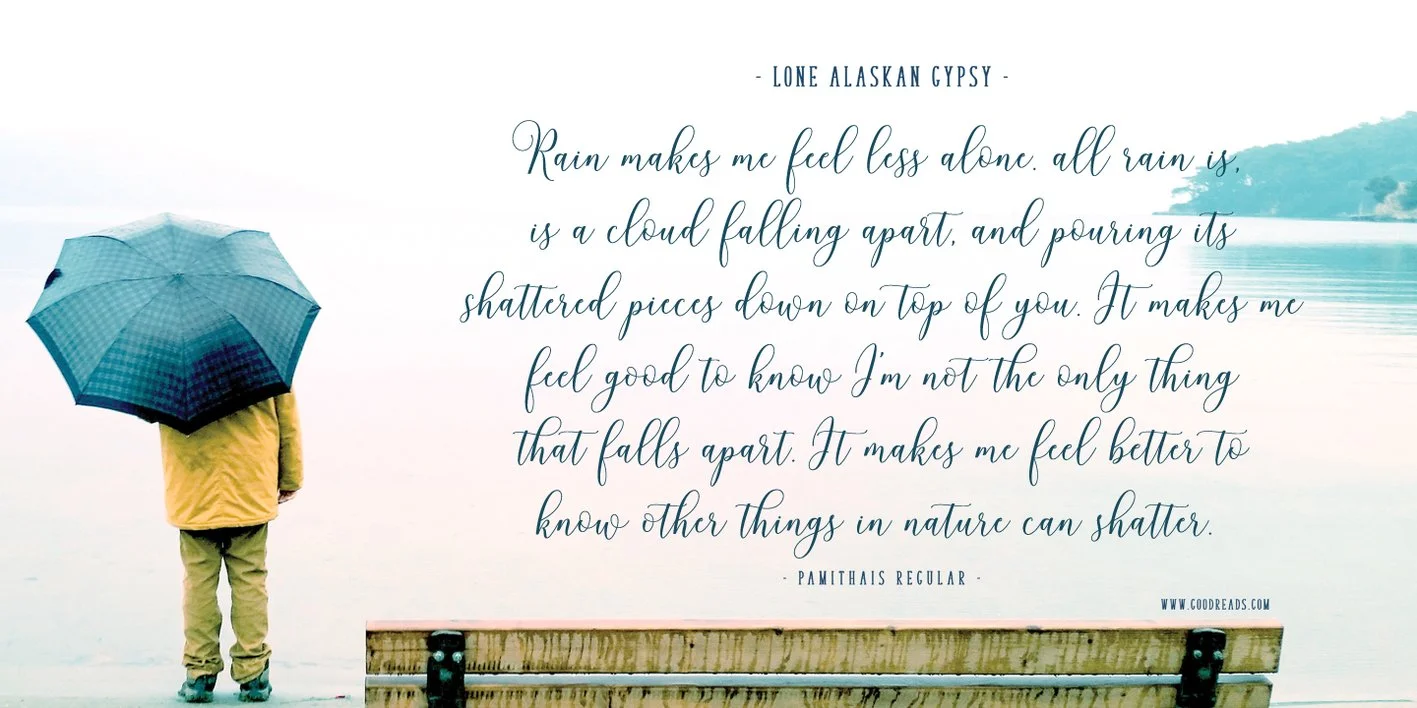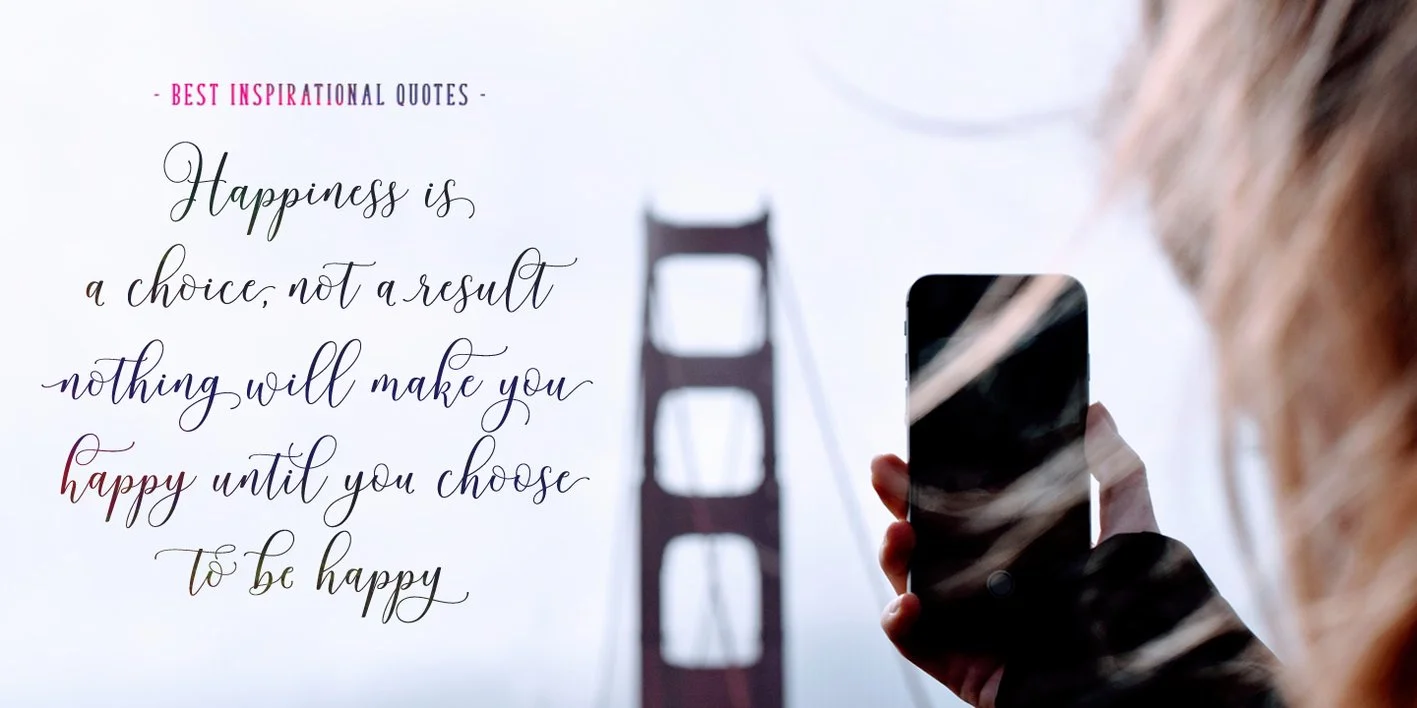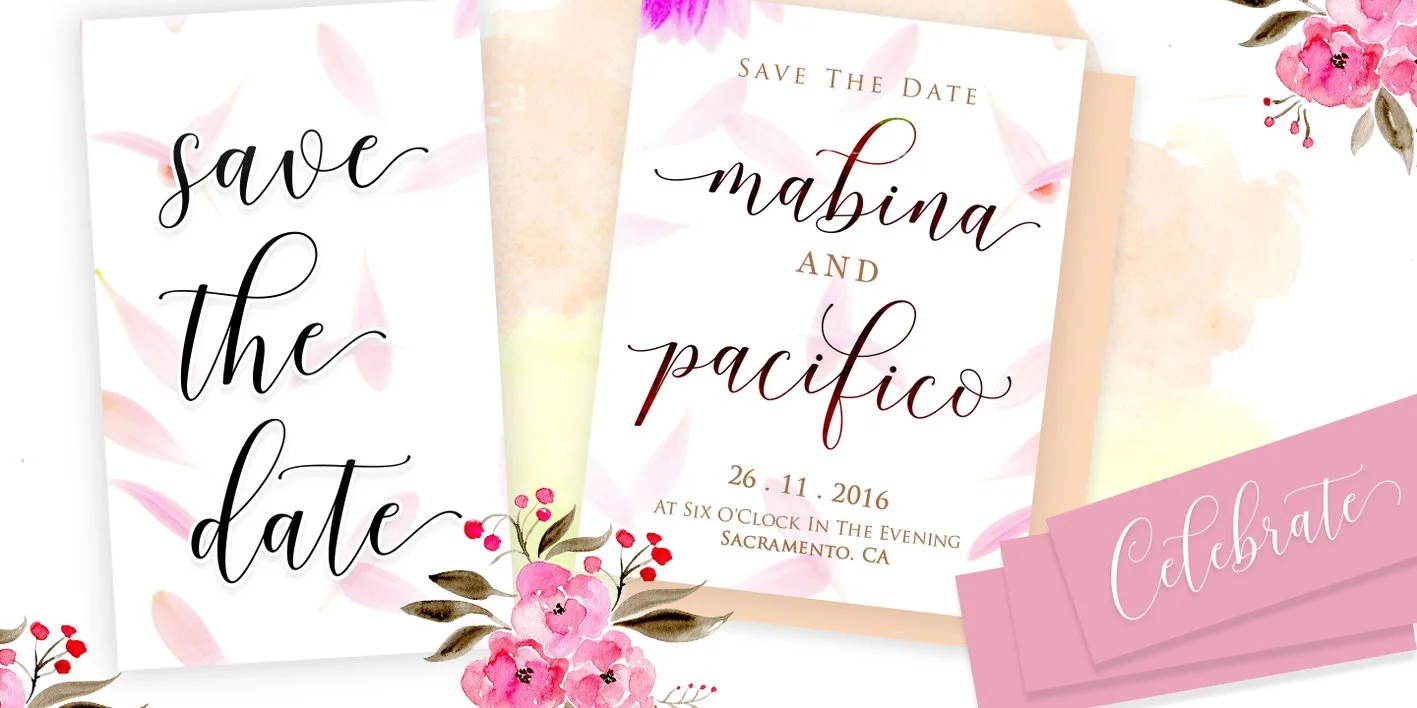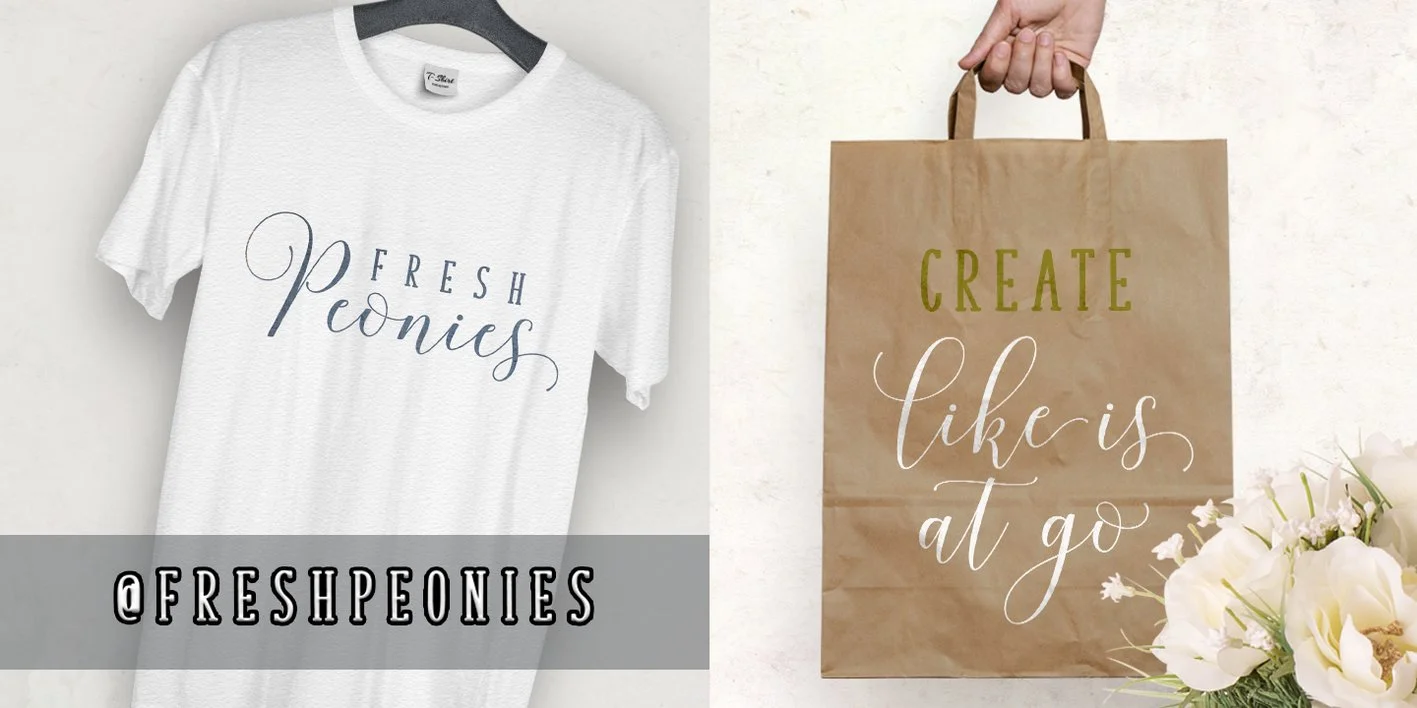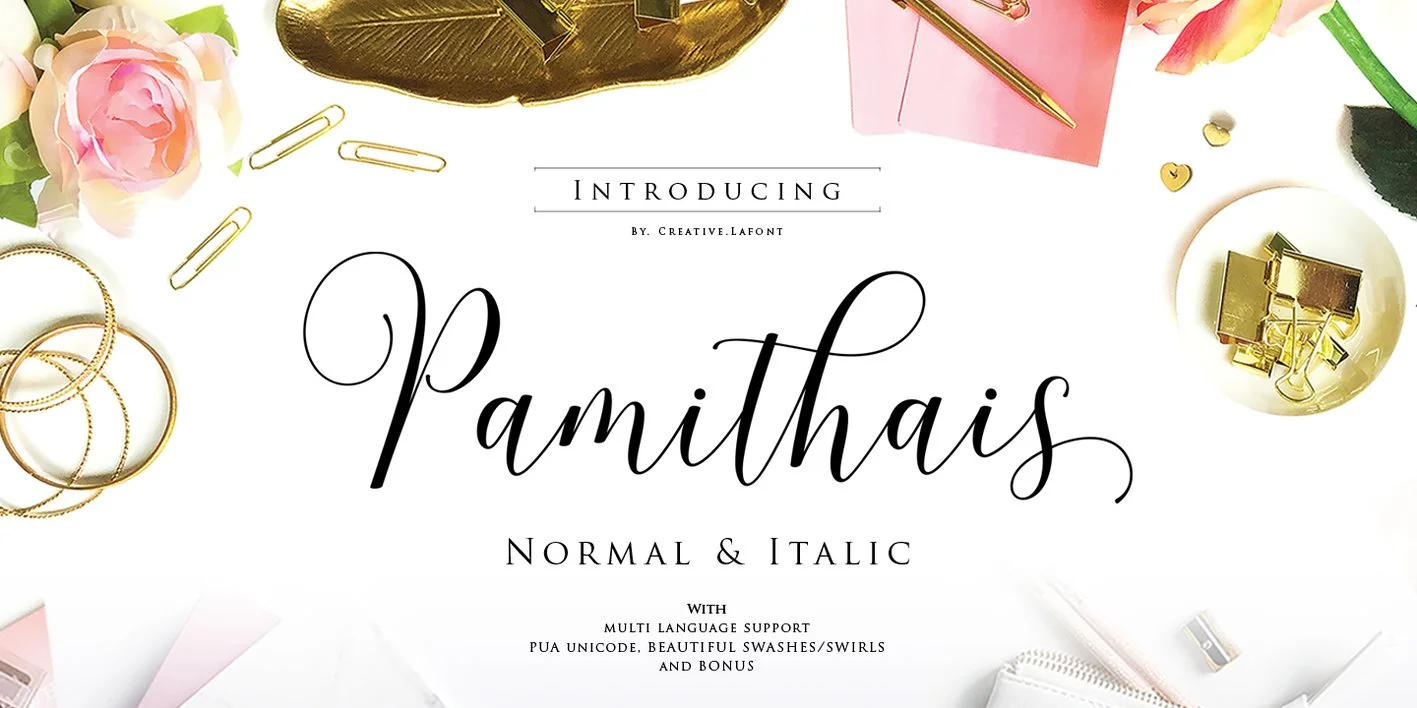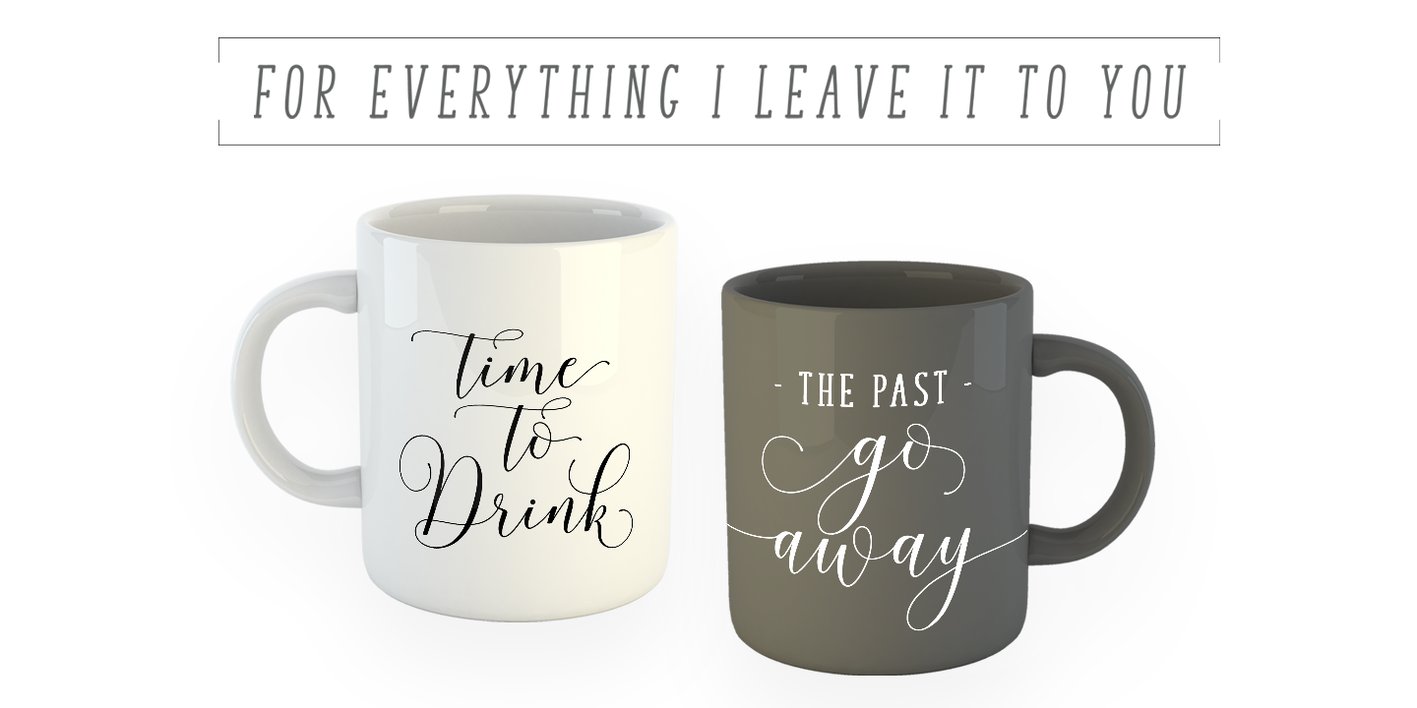
Pamithais Script Font
Pamithais Script Font excels in luxury jewelry branding, high-end perfume packaging, exclusive fashion boutique signage, sophisticated wedding venues, premium spa retreat materials, elegant art gallery displays, refined cultural events, aristocratic family crests, luxury hospitality branding, and distinguished literary publications. This exquisite typeface brings refined sophistication and aristocratic elegance to any luxury-focused design project.
Pamithais Script Font is exciting because it embodies the timeless sophistication and refined elegance of aristocratic heritage, featuring gracefully flowing letterforms that evoke the cultured refinement of European nobility and the sophisticated beauty of classical elegance. Its distinguished character instantly conveys luxury, exclusivity, and the impeccable taste that defines true aristocratic style and cultural sophistication.
Pamithais Script Font family includes Regular weight with aristocratic alternates, sophisticated swashes, refined flourishes, and elegant ornamental elements that enhance the luxury aesthetic, providing high-end designers with distinguished tools for creating typography that celebrates aristocratic elegance and sophisticated cultural refinement with timeless grace.
Pamithais Script Font offers luxury brand designers access to one of the most authentically aristocratic typefaces available for high-end design applications. This exceptional font has gained recognition among luxury retailers, exclusive hotels, and sophisticated cultural institutions for its ability to communicate aristocratic heritage and refined sophistication through typography that embodies the timeless elegance of cultured luxury.
Luxury heritage designers appreciate Pamithais Script Font for its exceptional ability to convey aristocratic refinement and cultural sophistication through meticulously crafted letterforms. The font's distinguished character and elegant details create immediate associations with European nobility, cultural refinement, and the sophisticated lifestyle that defines luxury living and aristocratic taste in fine arts, fashion, and hospitality.
The design inspiration behind Pamithais Script Font draws from classical European calligraphy, aristocratic manuscripts, and the rich cultural traditions of sophisticated nobility, making it particularly effective for luxury brands, cultural institutions, and exclusive services seeking to establish authentic connections with aristocratic heritage and refined cultural sophistication. Heritage teams working on luxury experiences find this font essential.
Whether used for luxury hotels, exclusive cultural events, or sophisticated fashion houses, Pamithais Script Font delivers the perfect synthesis of aristocratic elegance and cultural refinement. Its distinguished appeal and sophisticated heritage make it an indispensable choice for brands that celebrate aristocratic traditions, cultural sophistication, and the timeless elegance of refined luxury living.